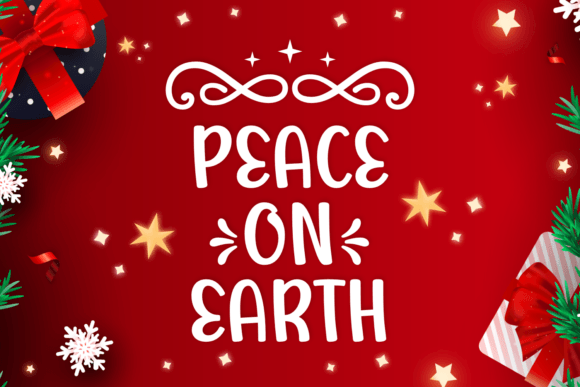
Introducing Peace on Earth, a delightful handwritten font brimming with warmth and charm. A creation of Riman (7NTypes), this script font is a symphony of delicate strokes and cheerful curves that evoke a sense of pure bliss.
Step into a world of creativity with Peace on Earth, a font family that embodies the spirit of joy. Each letter dances across the page like a playful melody, bringing a touch of whimsical delight to your designs. Whether you're crafting beautiful wedding invitations, heartfelt greeting cards, or captivating social media posts, this font will add an enchanting touch to your every project.
With Peace on Earth, the possibilities are endless. Picture a heartfelt research poster where the letters seem to leap off the page, inviting the reader on a captivating journey of discovery. Imagine a charming logo that emanates warmth and positivity, leaving a lasting impression on your customers. This font's versatility knows no bounds, extending from elegant branding materials to enchanting children's books, and everything in between.
Unleash your creativity and let Peace on Earth ignite your imagination. Its neat and joyful personality is the perfect companion for designers, crafters, and anyone who seeks to add a touch of cheer to their work. Immerse yourself in the beauty of this font and watch your creations come to life with a newfound vibrancy.